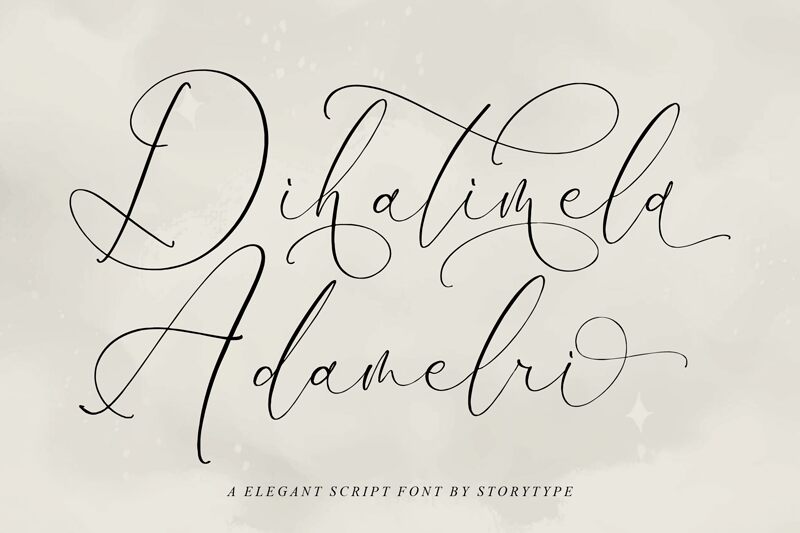
Dihatimela Adamelri
Dihatimela Adamelri, a creation of Storytype Studio, echoes with the elegance of handwritten artistry. Its delicate strokes and graceful flourishes evoke an air of sophistication, capturing the charm of personal touch in every curve. The light font dances across the page like a delicate wisp, conveying intimacy and warmth that is often lost in more mechanical typefaces.
Ideal for invitations, branding, and editorial design, Dihatimela Adamelri invites an audience to experience a bespoke sense of style. Its flowing letters are suited for projects that require a touch of finesse or a whisper of romantic nostalgia. Whether gracing the pages of a novel or the stationery of an exclusive event, this font marries the personal with the professional in harmonious splendor.